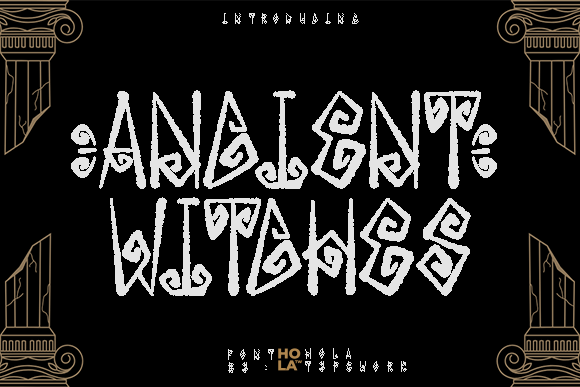
Unleash the Magic of Ancient Witches Font
As the sun sets on a crisp autumn evening, the air is filled with an eerie silence. You’re huddled around the screen, surrounded by scattered papers, design books, and a faint glow of a laptop. You’re on a mission to create the perfect Halloween design – one that transports viewers to a realm of mystery and enchantment. Your fingers dance across the keyboard as you search for the perfect font to cast your spell. And then, like a whispered secret, you stumble upon the Ancient Witches Font.
This spellbinding display font is a treasure trove of mystical symbols, ancient runes, and dark enchantment. With its unique blend of spiral strokes, geometric carvings, and occult aesthetics, the Ancient Witches Font adds an air of elegance and sophistication to any design. Whether you’re crafting a Halloween poster, witchy invitation, or dark fantasy branding, this font is sure to leave a lasting impression.
Ancient Witches Font Key Features
- Font Family: Ancient Witches Font is a unique, hand-drawn typeface designed to evoke a mystical and magical feel.
- Font Size: Offers a wide range of font sizes, from 8pt to 72pt, allowing for flexibility in various design applications.
- Resolution: Supports high-resolution displays, making it ideal for use in digital design, printing, and web development.
- Unique Characteristics: The font features intricate, hand-drawn details, swashes, and flourishes, adding a touch of whimsy and mysticism to any design.
- Language Support: Supports a wide range of languages, including Latin, Cyrillic, and Greek, making it a versatile choice for global design projects.
Ancient Witches Font Review
Overall, I think Ancient Witches Font is a great choice for designers who want to add a touch of mysticism and magic to their projects. ✨ The font’s unique, hand-drawn style gives it a lot of character and makes it stand out from more generic fonts.
- ✨ Unique, hand-drawn style that adds character to designs
- ✨ Works well for projects that require a touch of mysticism or magic
- ✨ Available in a range of weights and styles to suit different design needs
- ⚠️ May not be suitable for projects that require a more formal or professional tone
- ⚠️ Can be difficult to read at small font sizes, so be sure to test it in your design
Overall, I think Ancient Witches Font is a great choice for designers who want to add a touch of whimsy and magic to their projects. Just be sure to test it carefully and consider its limitations before using it in your design.
Use Ancient Witches Font to add a touch of mysticism and mystery to your designs.
Combine it with other fonts to create a unique and eye-catching look.
Ancient Witches Font is perfect for:
Designing mystical and magical themes.
Creating gothic and horror-inspired artwork.
Adding a touch of mystery and intrigue to your designs.
Alternative Fonts for Ancient Witches Font
Fontin is a serif font with a medieval feel, making it suitable for designs that require a sense of history and tradition. It is more elegant and refined compared to Ancient Witches Font, which has a more mystical and mystical feel. Use Fontin for designs that require a touch of sophistication and elegance, such as luxury branding or high-end packaging.
Playfair Display is an elegant and luxurious serif font, perfect for designs that require a sense of opulence and grandeur. It has a more refined and sophisticated feel compared to Ancient Witches Font, which has a more mystical and mysterious tone. Use Playfair Display for designs that require a touch of luxury and sophistication, such as high-end fashion branding or fine dining menus.
Carolyna Pro is a modern script font with a touch of elegance and sophistication. It has a more refined and polished feel compared to Ancient Witches Font, which has a more mystical and mystical tone. Use Carolyna Pro for designs that require a sense of luxury and sophistication, such as wedding invitations or high-end event branding.